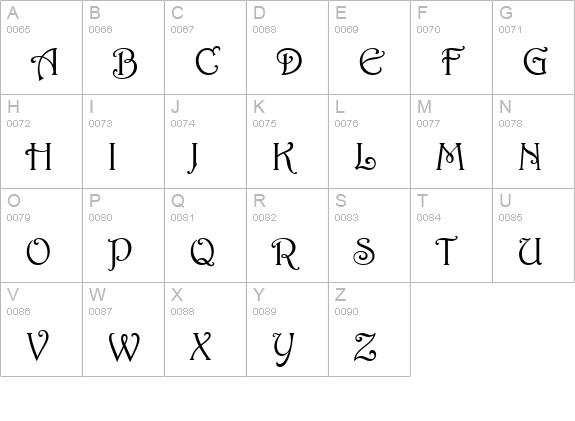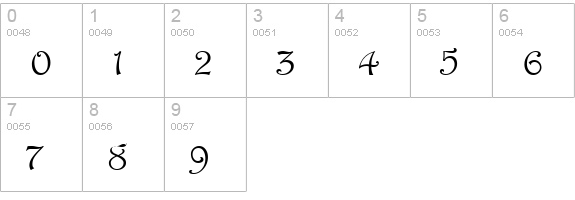
Harrington Font Details
Harrington font is a timeless and elegant typeface that exudes sophistication and charm. With its beautifully crafted letterforms and delicate serifs, this font captures the essence of classic typography while adding a modern twist. Its versatility allows it to be used for a wide range of applications, from elegant invitations to stylish logos. One of the most appealing aspects of Harrington font is that it is available for free download at FontsMarket.com. This means that anyone can access this exquisite typeface without having to worry about purchasing a license. Whether you are a professional designer or an aspiring artist, Harrington font offers you the opportunity to add a touch of class to your projects without breaking the bank. The creators of Harrington font have put meticulous attention to detail into every curve and stroke, resulting in a cohesive and visually pleasing typeface. Its legibility ensures that your message will be conveyed clearly, while its unique character sets it apart from other fonts in its category. Whether you are designing a wedding invitation, creating a branding package for a luxury brand, or simply looking to elevate the aesthetic of your personal blog, Harrington font is a versatile choice that will never disappoint. Its timeless appeal and freely accessible nature make it a must-have in any designer's toolkit. So why wait? Head over to FontsMarket.com today and experience the beauty of Harrington font for yourself. Download it for free and let your creativity soar as you explore the endless possibilities this font has to offer.